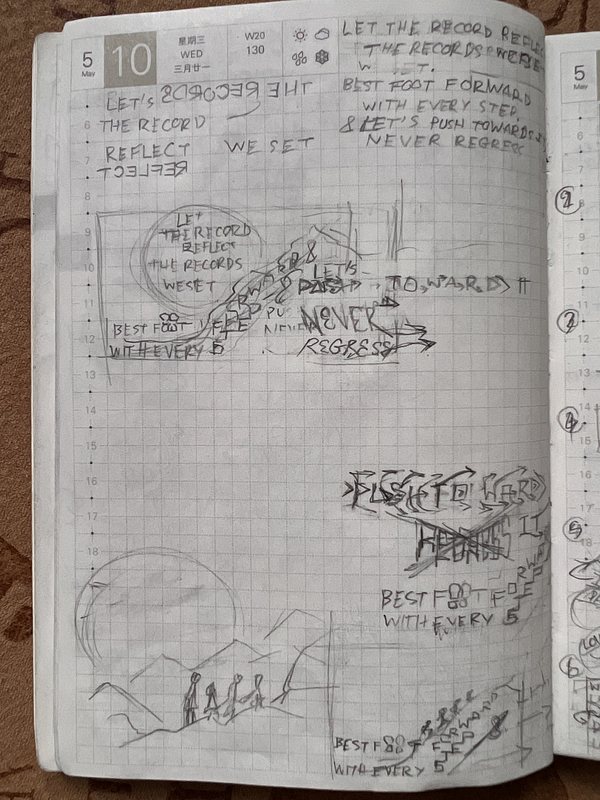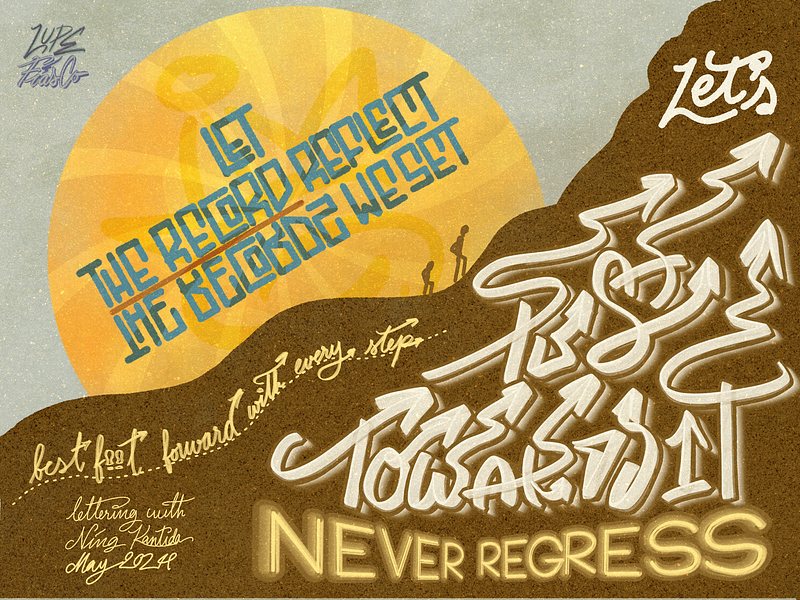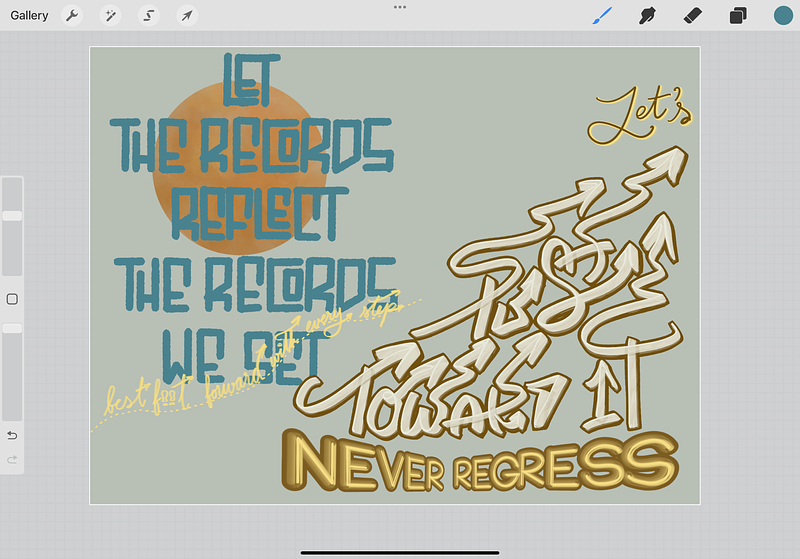
The Lyrics Lettering 00010-Never Forget You by Lupe Fiasco
The Work
My design inspired by Never Forget You by Lupe Fiasco
The design inspired by Never Forget You by Lupe Fiasco
The Inspiration
This design was inspired by the rhymes in “Never Forget You” by Lupe Fiasco. These lines don't capture the essence of the song, but I absolutely love them. The wordplay in these lines is so beautifully written and emphasizes the importance of moving forward while cherishing our milestones and achievements.
It perfectly sums up how we should live our lives—celebrating our achievements, staying focused on doing our best, always aiming to improve, and continuing to move forward towards our goals.
“... Let the record reflect the records we set.
Best foot forward with every step.
And let's push towards it, never regress …”
The Process
I thought it would be fun to use “best foot forward with every step,” like stepping on the stairs. And then it hit me that it’d be better to create a design that resembled climbing a mountain.
Whether living or hiking, there will always be a moment when you may have doubts about whether to turn back or keep going. So the lyrics fit perfectly here, reminding us to keep it going.
Every step we take is always a new achievement that we should be proud of, and we can achieve much greater things if we keep going.
The idea is perfect, at least for me, but the execution is not easy. I’d like the whole design to guide us toward the top of the mountain, so I had to draw arrows on as many letters as possible. Additionally, I need to arrange the lyrics in a mountain shape, which is much more difficult than it looks.
The process proved to be challenging, but after working on it for half a day, I am proud of the final result. I really love the idea of using arrows, and the reflection for the word “record” in my design.
If the inspiration strikes me, I will come back and change the letter styles for the phrase “Let the record reflect the records we set.”